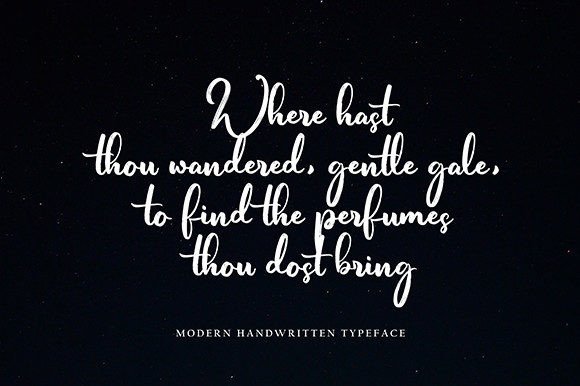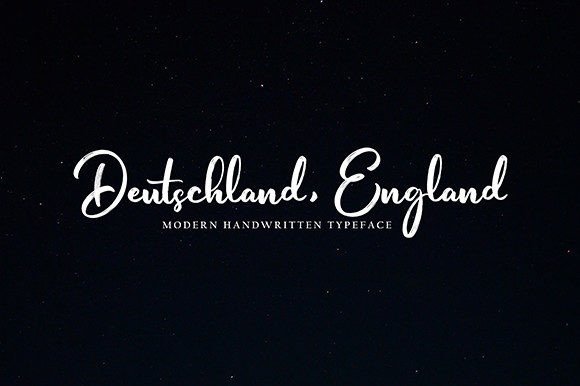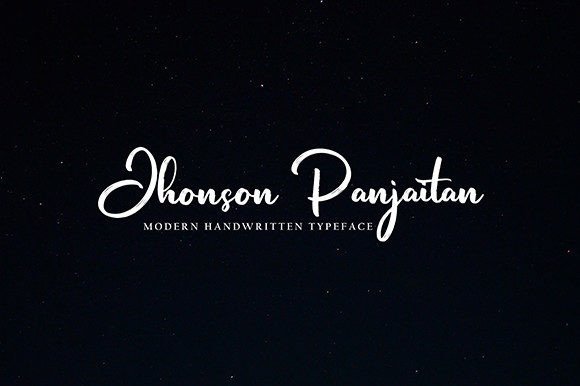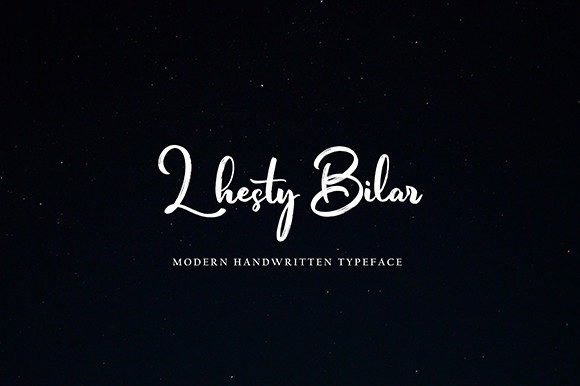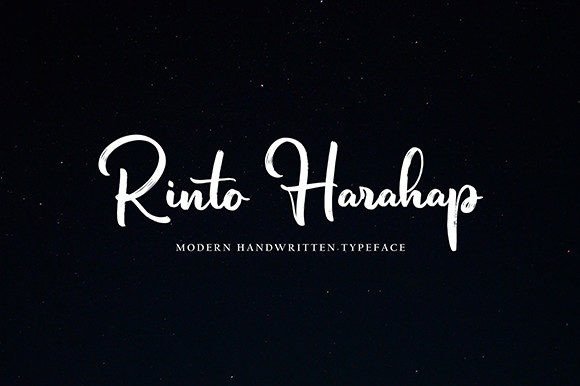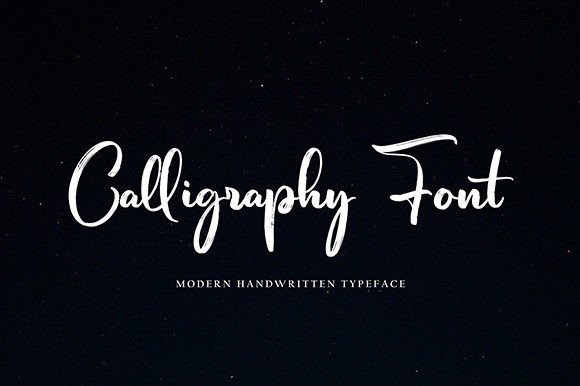
Fhanattic Font: Elevate Your Designs with a Modern Handwritten Brush Font
In the world of typography, fonts play a crucial role in conveying the tone and personality of a design. For designers and crafters looking for a modern and cool handwritten brush font, Fhanattic is an excellent choice. This versatile font is designed to look great in a wide variety of contexts, making it a valuable addition to any design arsenal.
What is Fhanattic Font?
Fhanattic is a modern handwritten brush font that exudes a sense of creativity and playfulness. Its unique, hand-crafted look makes it perfect for designs that require a personal touch. Whether you’re working on a logo, branding materials, social media graphics, or craft projects, Fhanattic is sure to impress.
Key Features of Fhanattic Font
- Modern and Cool Design: Fhanattic boasts a fresh and trendy design that’s sure to capture attention. Its modern look makes it ideal for designs that require a contemporary feel.
- Handwritten Brush Style: The font’s handwritten brush style gives it a personal and artistic feel, making it perfect for creative projects.
- Incredibly Versatile: Fhanattic is designed to be versatile, making it suitable for a wide range of applications, from logos and branding to social media graphics and craft projects.
Use Cases for Fhanattic Font
Fhanattic’s versatility makes it suitable for various design projects, including:
- Logo Design: Create a unique and memorable logo for your brand with Fhanattic’s modern and cool design.
- Branding Materials: Use Fhanattic to create consistent branding across various materials, such as business cards, brochures, and letterheads.
- Social Media Graphics: Add a personal touch to your social media graphics, including Facebook posts, Instagram stories, and Twitter headers.
- Craft Projects: Fhanattic is perfect for crafters who want to add a creative touch to their projects, such as handmade cards, scrapbooking, and DIY tutorials.
Tips for Using Fhanattic Font Effectively
To get the most out of Fhanattic, follow these tips:
- Pair with Other Fonts: Combine Fhanattic with other fonts to create a unique and visually appealing design.
- Experiment with Colors: Try out different colors to find the perfect match for your design.
- Pay Attention to Spacing: Ensure that your text has sufficient spacing to maintain readability and visual flow.
Fhanattic font is a valuable addition to any designer’s or crafter’s toolkit. Its modern and cool handwritten brush design makes it perfect for a wide range of applications. With its versatility, ease of use, and creative possibilities, Fhanattic is sure to elevate your designs and help you stand out from the crowd.